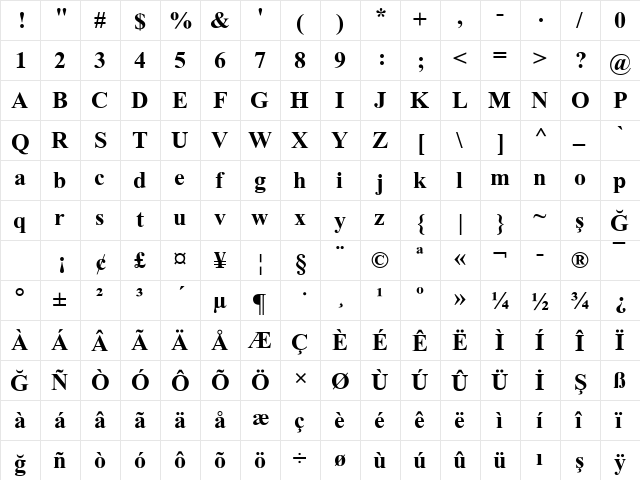
Times2 New Roman Bold Turkce
Design Context for Times2 New Roman Typeface
Times2 New Roman takes a measured approach to typography — its balanced proportions and neutral character make it a reliable workhorse for both digital and print work. The heavy weight commands attention and anchors typographic hierarchies.